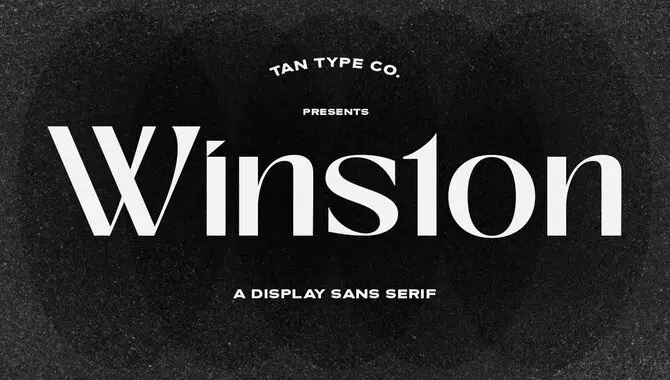
Step back to the glamorous era of the 1920s, where style and sophistication reigned supreme. One of the key elements that defined this iconic period was the typography used in the design.
We will take you through the 15 best 1920s font design trends returning today. From the elegant curves of the Greatsby Typeface to the bold lines of the Winston Typeface, each font has its unique charm and character.
Whether you’re working on a vintage-inspired project or simply want to add a touch of nostalgia to your designs, these fonts will captivate and transport your audience to the roaring twenties. Get ready to embrace the Art Deco style and elevate your designs with these stunning fonts.
The 158 Best 1920s Font Design Trends
The 1920s witnessed the emergence of several font design trends, capturing the essence of this iconic era. Discover the 18 best 1920s font design trends that combine vintage charm and sophistication effortlessly. From Art Deco’s geometric shapes to Bauhaus’ minimalist appeal, these fonts exude timeless elegance.
Futura’s clean lines and Gatsby fonts inspired by “The Great Gatsby” are perfect for adding a touch of retro glamour. Explore the beauty of calligraphy and cursive fonts, or opt for ornamental fonts with exquisite details. With these font styles, your designs will evoke the spirit of the Roaring Twenties. Here are 18 of the best font design trends to inspire your next project:
Greatsby Typeface
This highly versatile typeface, Greatsby, embodies the elegance and sophistication of the 1920s. Inspired by Art Deco design, it features bold shapes and clean lines, injecting glamour into any project. Ideal for vintage-inspired creations, such as invitations or logos, Greatsby Typeface lends a nostalgic charm and unforgettable appeal. Pair it with other fonts to create captivating layouts.
Delauney
Drawing inspiration from the 1920s Art Deco movement, Delauney font showcases bold geometric shapes and clean lines, embodying the architectural designs of the era. Perfect for headlines and body text, this versatile typeface allows for creative customization with various weights and styles. Delauney exudes elegance and sophistication, offering the ideal choice to capture the spirit of the 1920s.
Bandoeng
Bandoeng, a popular font from the 1920s, embraces the sleek and modern aesthetics of Art Deco and geometric design. Perfect for vintage-inspired designs, this font exudes nostalgia for the Roaring Twenties. Explore its versatility in different weights and styles, making it an excellent choice for logos and headlines. Capture the spirit of the 1920s with Bandoeng.
Waverly CF
Waverly CF, a versatile and stylish font, beautifully embodies the charm of the 1920s Art Deco era. Its elegant and geometric letterforms, characterized by clean lines and sharp angles, bring a touch of sophistication to any project.
Whether creating logos, designing posters, or crafting graphic elements, Waverly CF’s versatility and extensive range of weights and styles make it a top choice for designers seeking a semi-modern font with a vintage flair.
Decorá
DECORÁ is a font that embodies the design trends of the 1920s. With its elegant and art deco-inspired letterforms, DECORÁ captures the essence of the roaring twenties. This font is characterized by its geometric shapes, bold lines, and intricate details, which were popular during this time period.
Whether you are working on a vintage-themed project or simply want to add a touch of glamour to your designs, DECORÁ is the perfect choice for capturing the spirit of the 1920s. Its timeless appeal and versatility make it a favourite among designers and typographers.
Decolot
Decolot is a popular 1920s font design that captures the essence of the Art Deco movement. With its geometric shapes, clean lines, and elegant curves, Decolot brings a touch of vintage glamour to any design project.
This font is perfect for creating invitations, posters, logos, and other creative projects that require a retro aesthetic. Its bold and distinctive style makes it instantly recognizable and adds a touch of sophistication to any design.
Serendior
Serendior, an elegant and versatile font, flawlessly embodies the 1920s art Deco style. Its bold geometric shapes and clean lines pay tribute to the glamorous Roaring Twenties. Perfect for logos, posters, and invitations, Serendior recalls the vintage charm of the era. Transport your designs back to the sophistication of the 1920s with this stylish typeface.
Trellis
When it comes to font design trends, Trellis is a standout choice. This classic font captures the essence of the roaring twenties with its elegant and sophisticated style. Its sleek lines and geometric shapes are reminiscent of the Art Deco movement that defined this era. Trellis adds vintage charm to any design project, whether used for headlines, logos, or invitations.
Botanica
With its elegant and sophisticated lettering, Botanica is a font from the 1920s era that perfectly captures the essence of the Roaring Twenties. This stylish font, inspired by Art Deco design, adds a touch of nostalgia to any vintage-themed project, whether it’s logos, titles, or packaging.
5.Are There Any Specific Fonts Commonly Used In Advertising During The 1920s?
Ans: Yes, various fonts were widely used in advertising during the 1920s. Fonts such as Art Deco, Bauhaus, and Futura were particularly popular. These fonts typically showcased bold, geometric shapes and clean lines, which can evoke a nostalgic feel and capture the spirit of the Roaring Twenties.